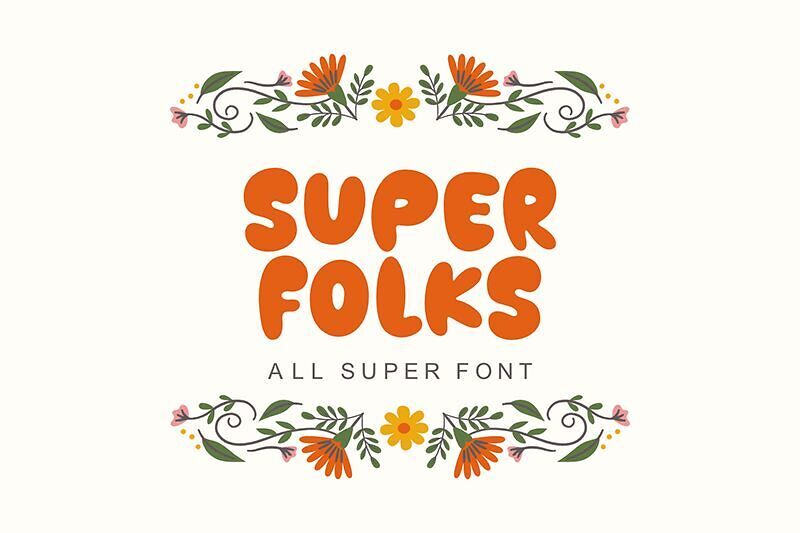
Super Folks is a playful, cartoon-style typeface perfect for adding a fun, whimsical touch to your designs. With its bold, rounded shapes and quirky charm, it’s ideal for comics, kids’ books, posters, and branding projects that need a lighthearted vibe.